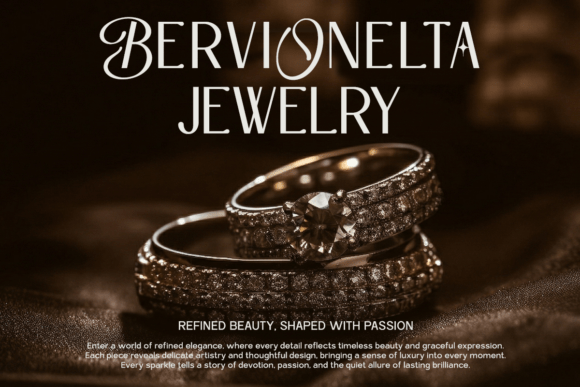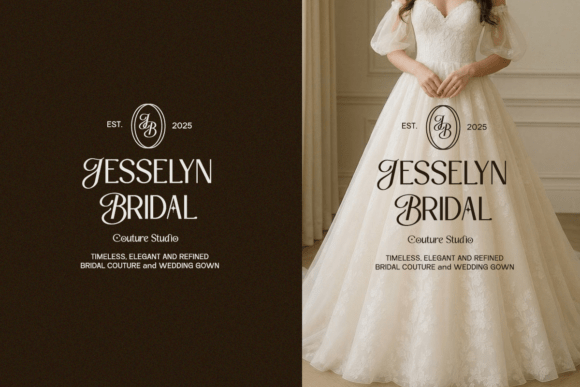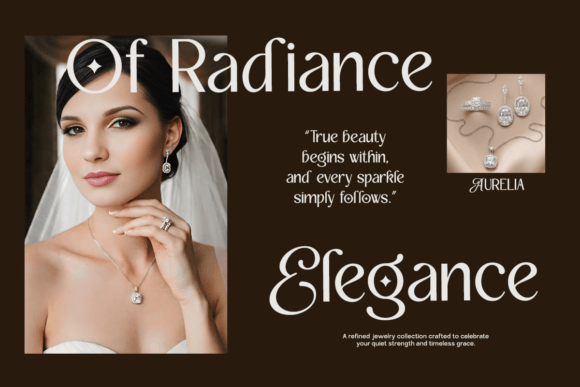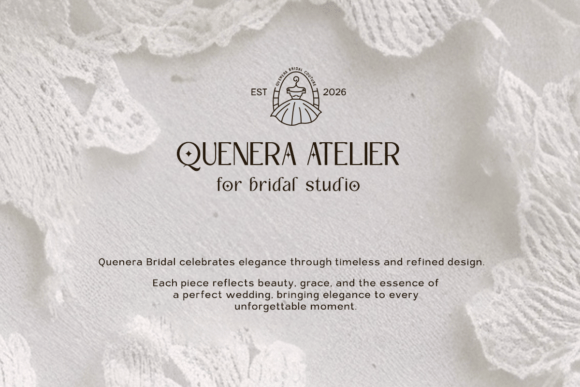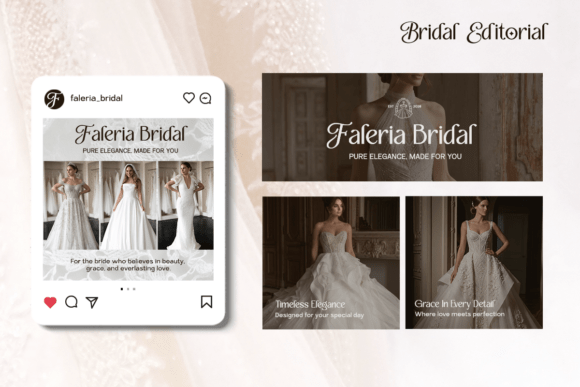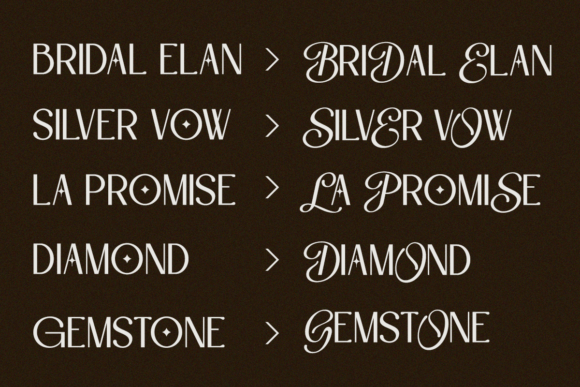
Introduction to Gosera Font
Gosera is an elegant sans serif font that blends modern minimalism with subtle artistic flair.
Ideal for branding, logos, fashion visuals, and editorial layouts, Gosera adapts effortlessly across creative projects Its elegant structure makes it especially suitable for luxury branding and modern identity design, while the italic style enhances visual dynamics and adds a graceful, flowing touch.
Key Features of Gosera Font
Why Choose Gosera Font?